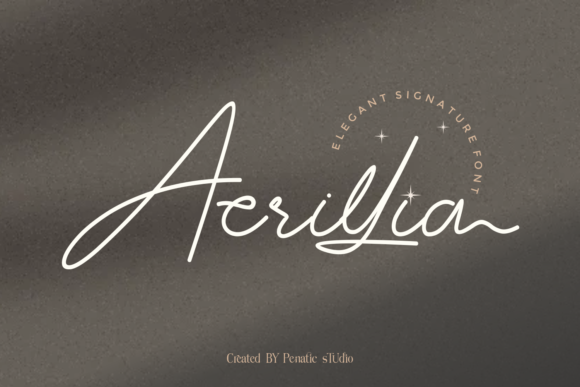
The Elegance of Acrillia Font: A Designer’s Delight
I’ll never forget the time I was working on a wedding invitation project, and my client asked for a font that would make their special day feel like a fairytale. I scoured the internet, tried countless fonts, but nothing seemed quite right. That was until I stumbled upon Acrillia Font. Its elegant script and stylish flair instantly captured the essence of the occasion, and I knew I’d found the perfect fit. In this article, I’ll share my love for Acrillia Font, its features, and how to make the most of it in your designs.
An Honest Review of Acrillia Font
- ✨ Elegant and stylish script: Acrillia Font is perfect for designs that require a touch of sophistication and glamour.
- ✅ Versatile: It works beautifully on wedding invitations, thank you cards, quotes, greeting cards, logos, business cards, and more.
- 💫 Handwritten touch: The font’s unique character and flair make it perfect for adding a personal touch to your designs.
While Acrillia Font is an excellent choice, there are a few things to keep in mind:
- 🤔 Legibility at small sizes: As with many script fonts, Acrillia may become difficult to read at very small sizes. It’s best used at larger sizes or for headlines.
- ⚠️ Pairing with other fonts: Be mindful of the fonts you pair with Acrillia, as it can be quite dominant. Choose complementary fonts that provide a nice contrast.
The Story Behind Acrillia Font
Acrillia Font was designed with elegance and sophistication in mind. While the designer’s inspiration is not publicly known, it’s clear that they aimed to create a font that would add a touch of glamour to any design. Whether you’re working on a wedding invitation or a business card, Acrillia Font is sure to impress.
| Author | Penatic Studio |
| What is Acrillia Font best used for? | Acrillia Font is perfect for designs that require a touch of elegance and sophistication, such as wedding invitations, thank you cards, and business cards. |
| Is Acrillia Font suitable for body text? | While Acrillia Font is beautiful, it’s best used for headlines or short paragraphs. Its elegant script can be difficult to read in large blocks of text. |